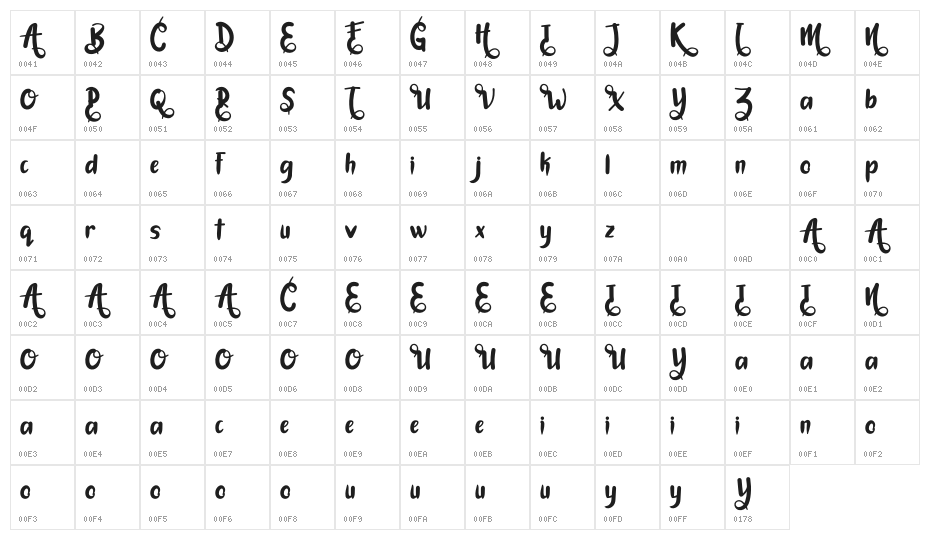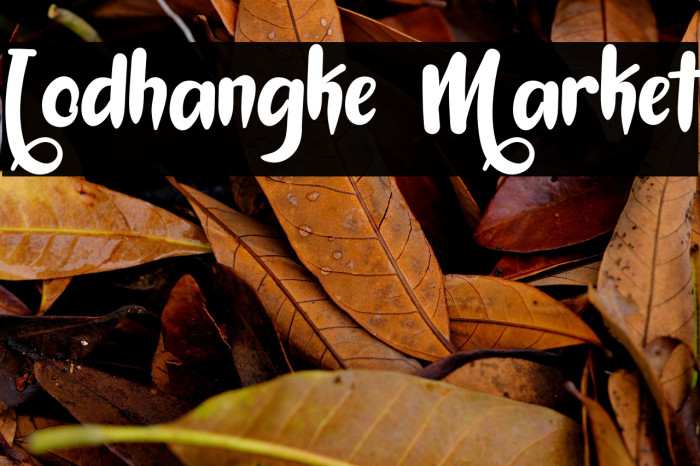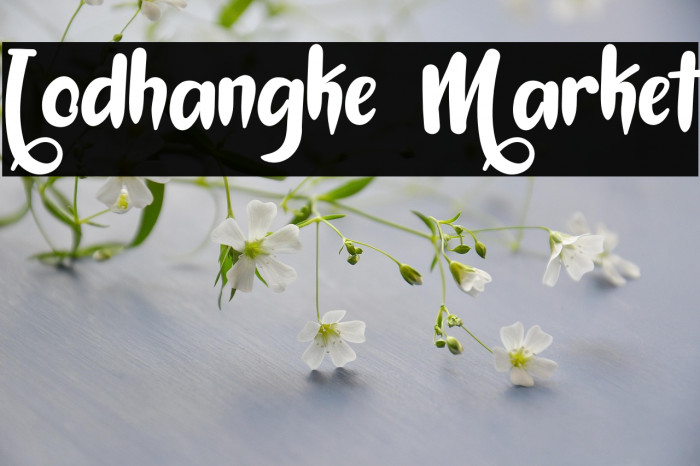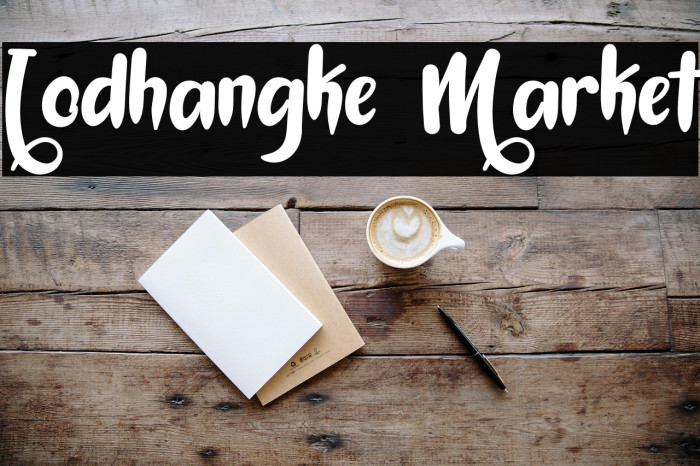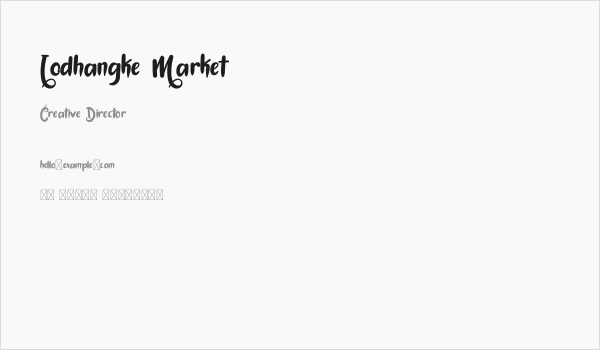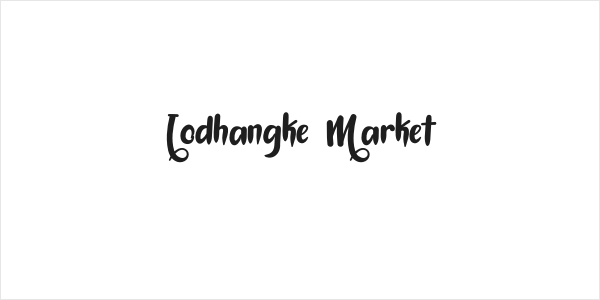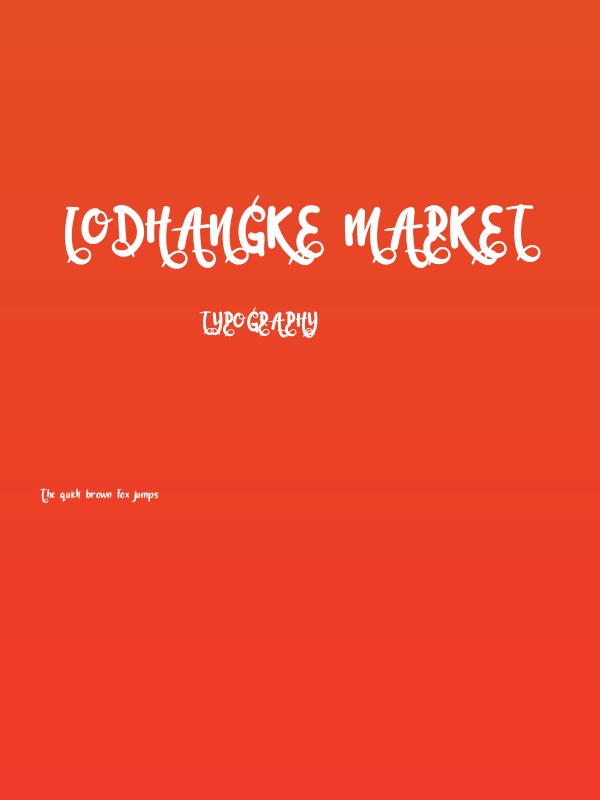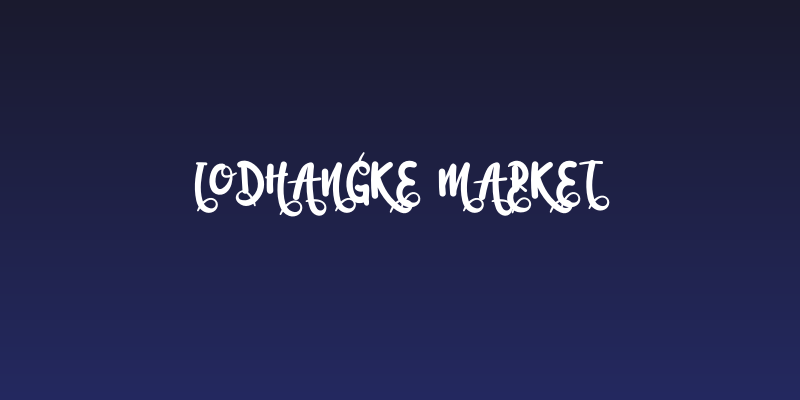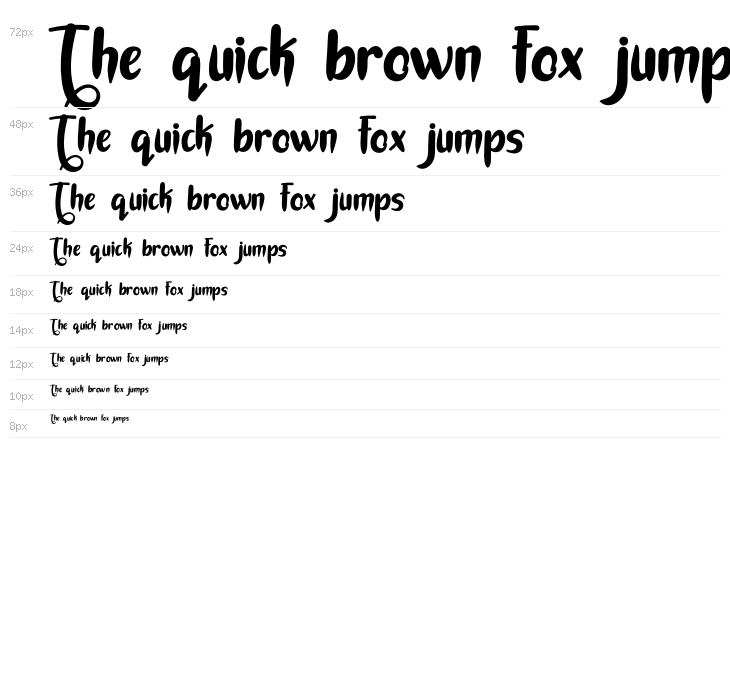
Lodhangke Market Font
Lodhangke Market Description
This font features a playful and decorative style with a unique flair. The uppercase letters are adorned with swirls and loops, giving them a whimsical and artistic appearance. The lowercase letters maintain a bold and smooth design, offering a nice contrast to the intricate uppercase. The font is highly decorative, making it suitable for creative and expressive projects. It lacks traditional serifs, focusing instead on a more fluid and dynamic form. The characters are well-spaced, ensuring readability despite their ornate design. This font is ideal for projects that require a touch of elegance and creativity, such as invitations, posters, or branding materials.
| Proposed Projects | Ideal for invitations, posters, branding, and creative projects requiring an artistic touch. |